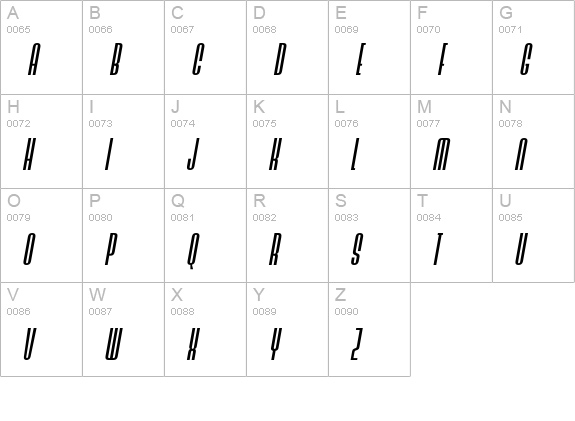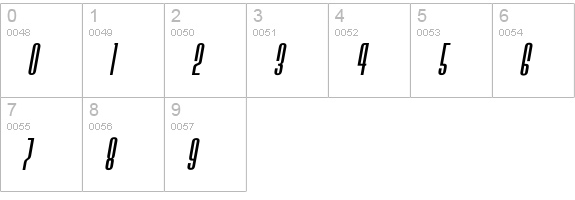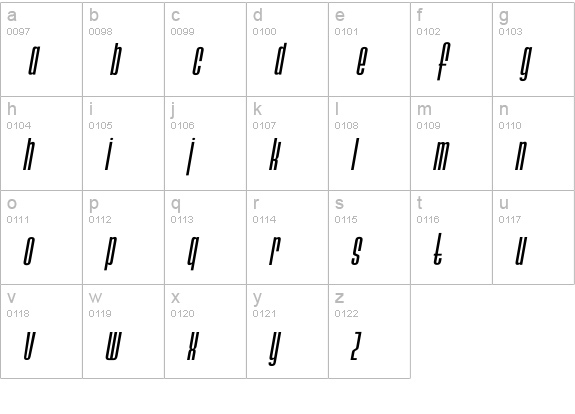
Ainsdale-MediumItalic Font Details
Introducing Ainsdale-MediumItalic font, a beautifully crafted typeface that strikes the perfect balance between elegance and modernity. Its sleek and stylish design exudes sophistication, making it ideal for a wide range of design projects. The MediumItalic style adds a touch of flair and personality to your text, making it stand out in any context. And the best part? Ainsdale-MediumItalic font is completely free! That's right, you can download this stunning font at FontsMarket.com at no cost at all. Whether you're working on a branding project, designing a website, or creating eye-catching graphics, Ainsdale-MediumItalic font is sure to elevate your work to the next level. Don't miss out on this amazing opportunity to enhance your designs with this versatile and elegant typeface. Download Ainsdale-MediumItalic font today and let your creativity soar!